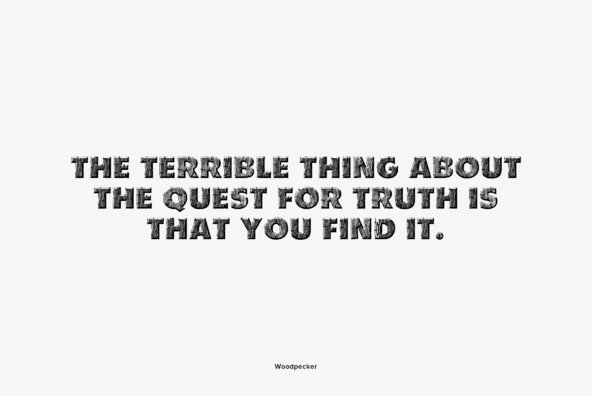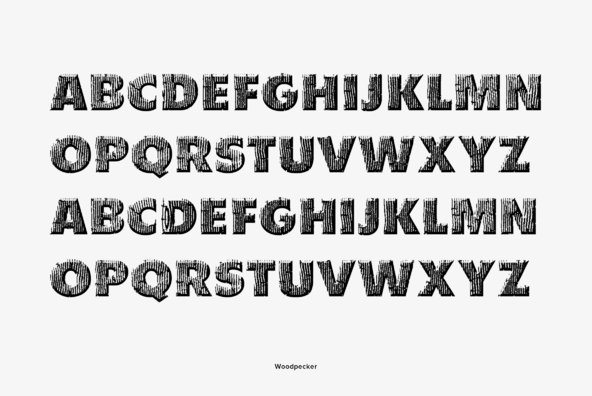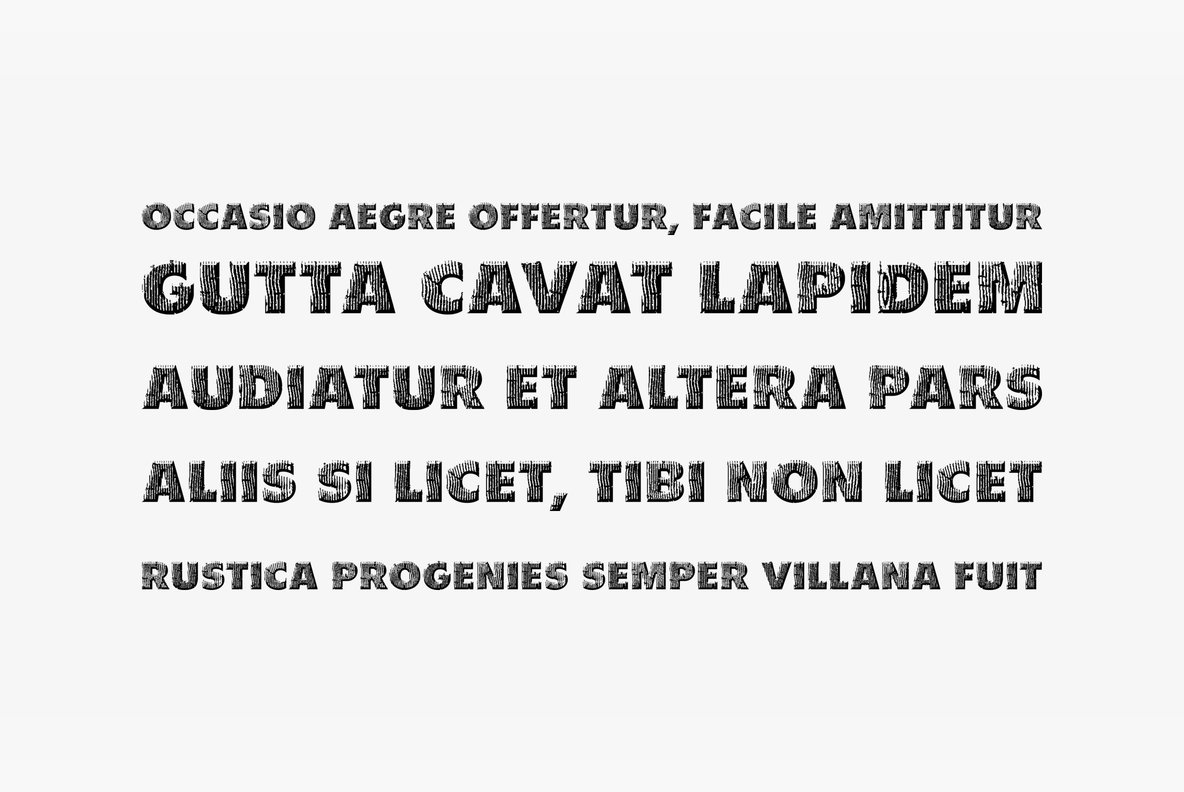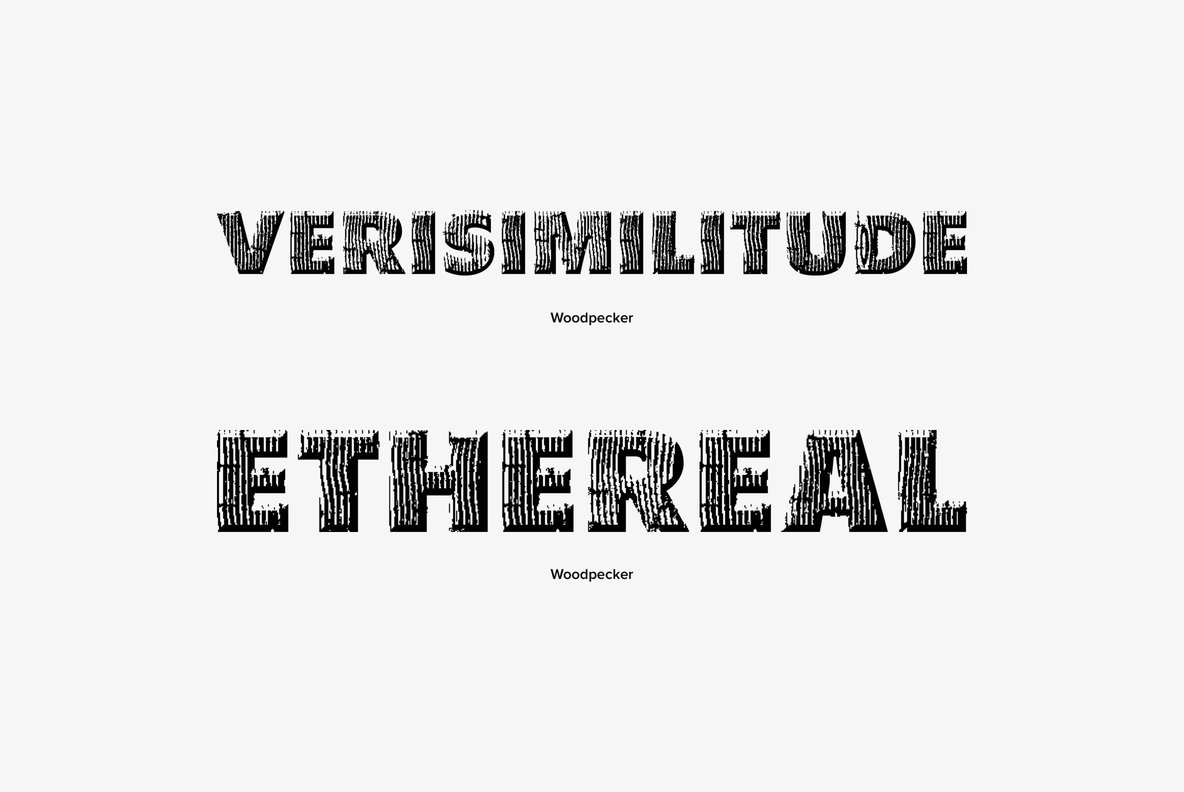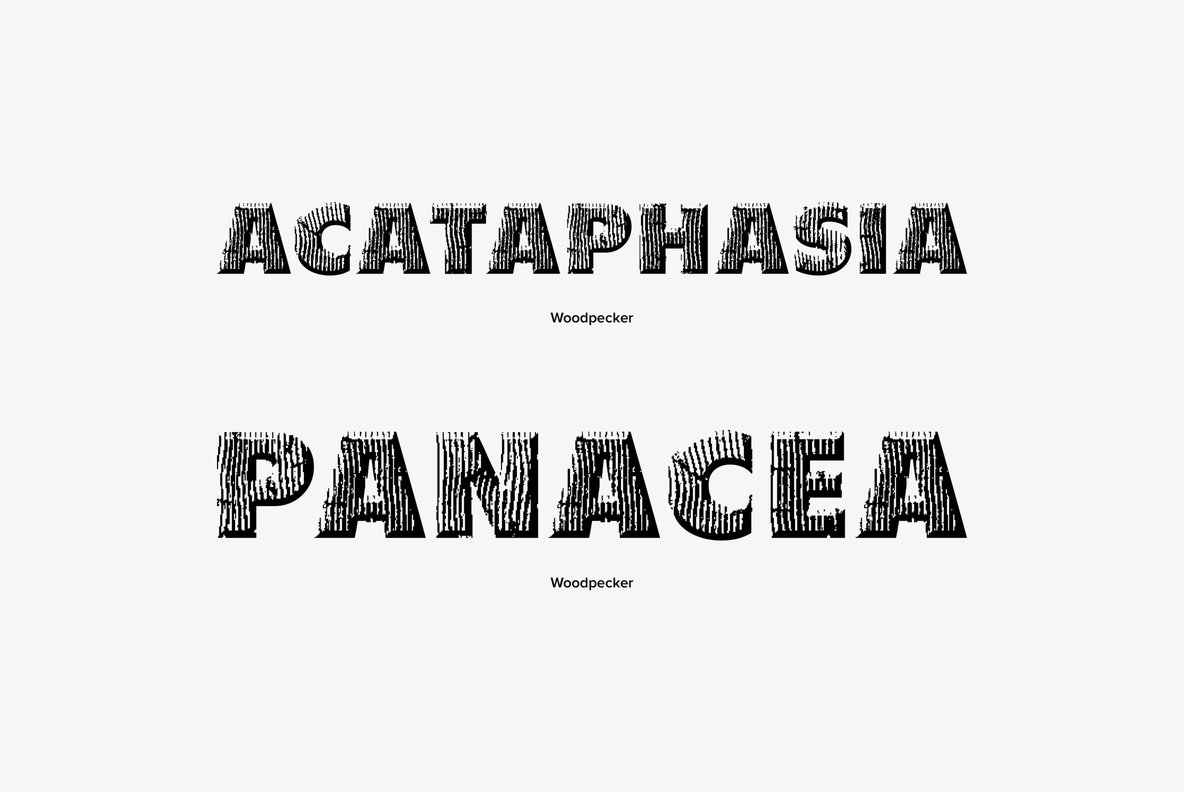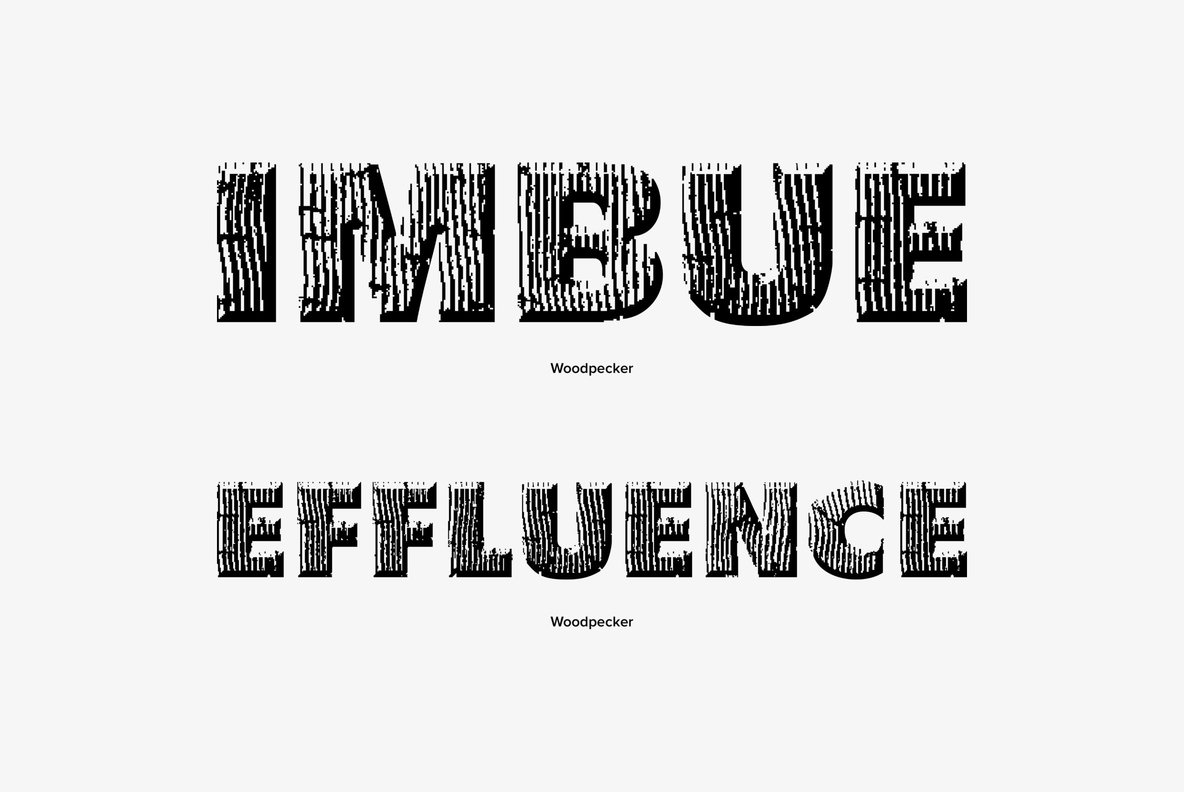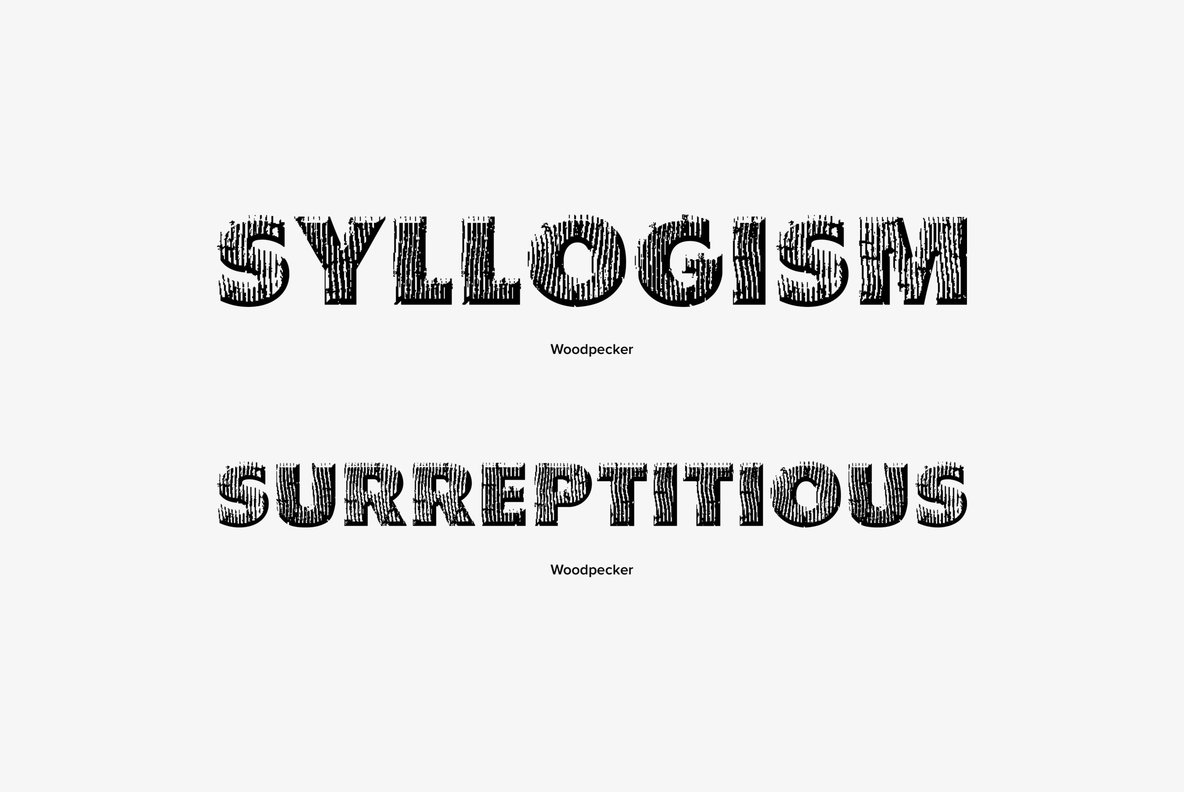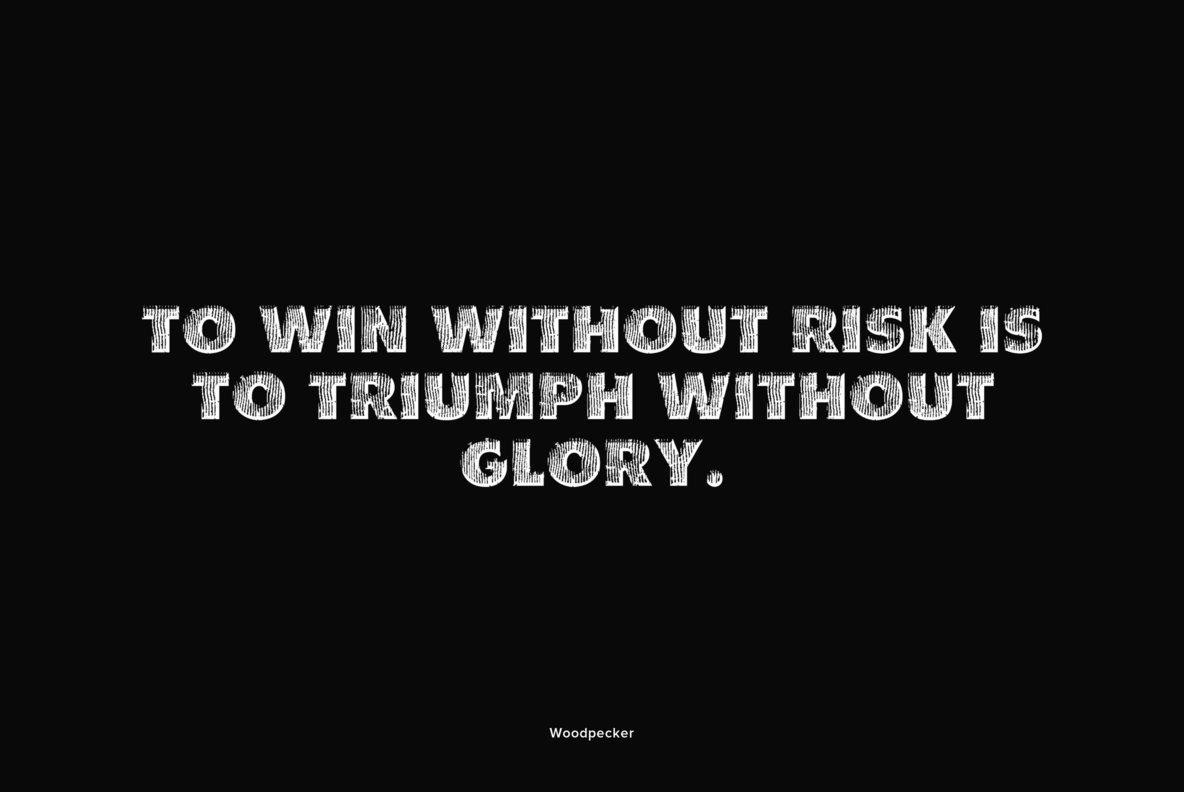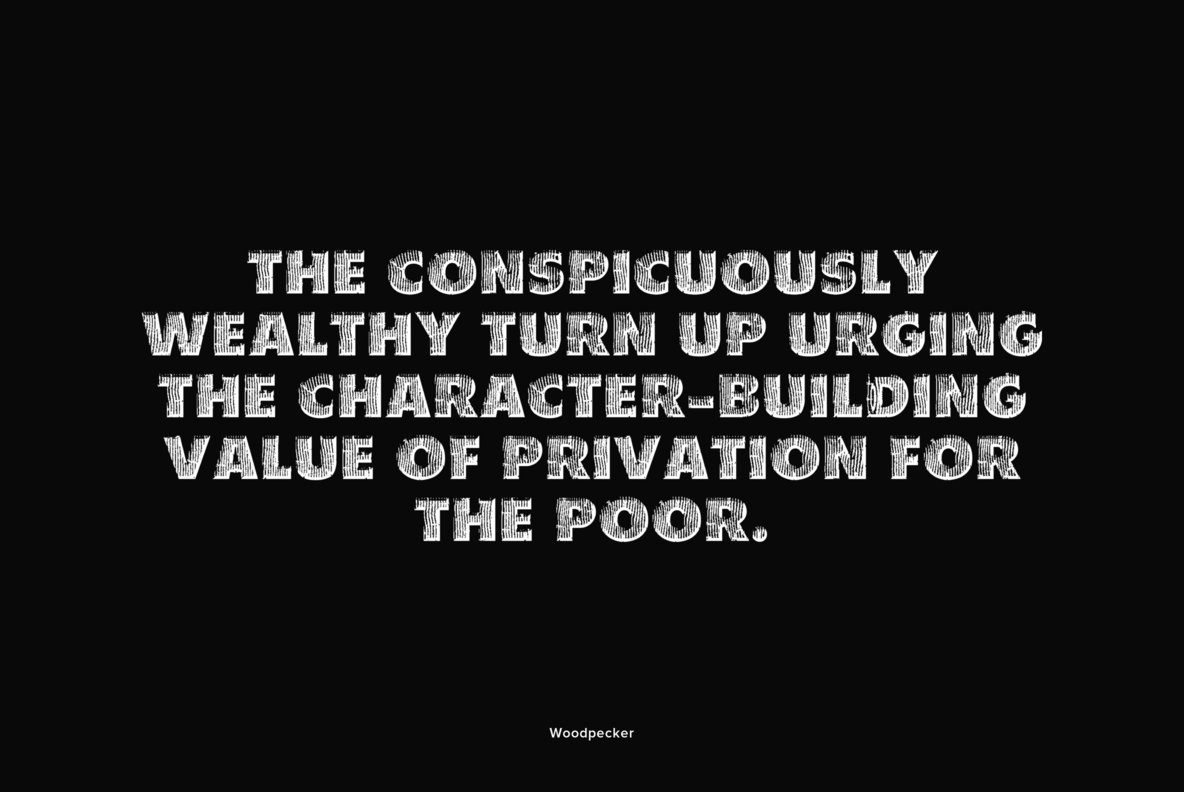
Woodpecker is a self-confident, sturdy caps-only sans serif design imitating grained wood, created and digitized by German type designer Ralph M. Unger for the profonts library. Woodpecker is perfectly suited for any graphic work around timber, lumber, pr...
Woodpecker is a self-confident, sturdy caps-only sans serif design imitating grained wood, created and digitized by German type designer Ralph M. Unger for the profonts library.